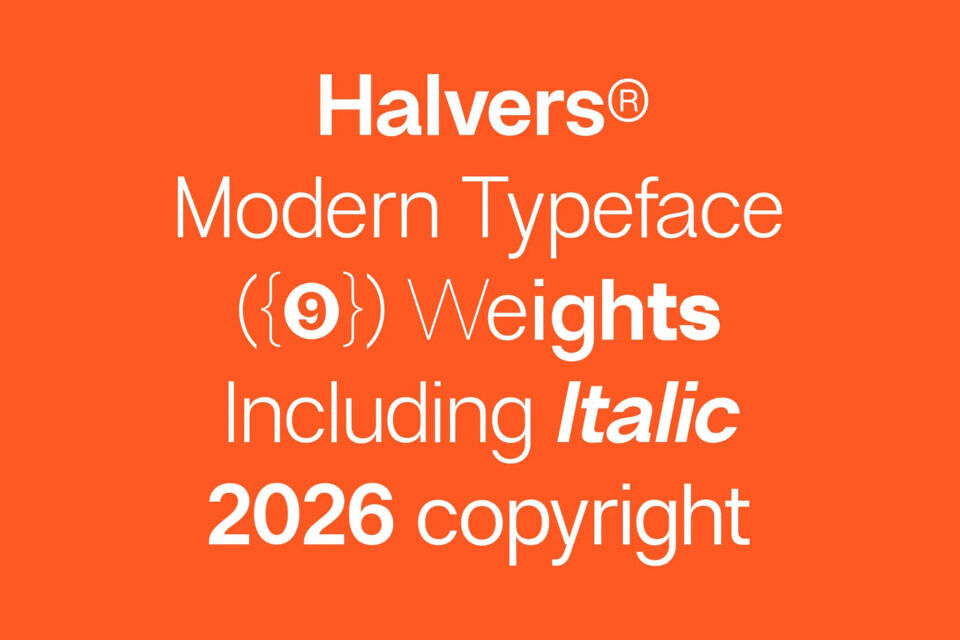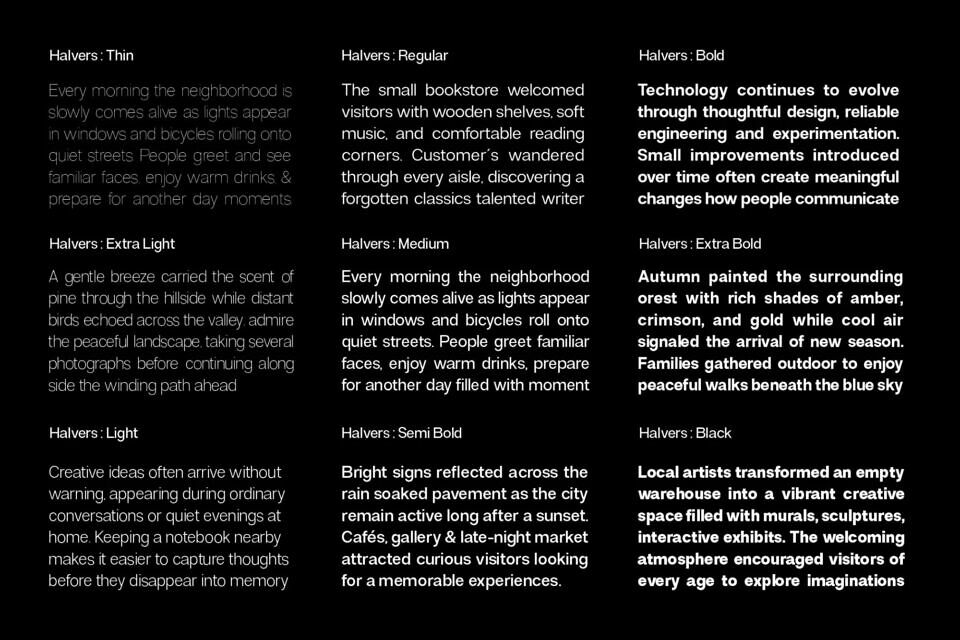
Elevate your next design project with Halvers, a clean and contemporary sans-serif typeface built for modern branding, editorial design, digital products, and professional communication.
Featuring 9 versatile weights with matching Italic styles, Halvers offers the flexibility needed for everything from bold headlines to refined body text and UI. Its balanced proportions, geometric construction, and exceptional readability make it a dependable choice for designers, agencies, and creative professionals.